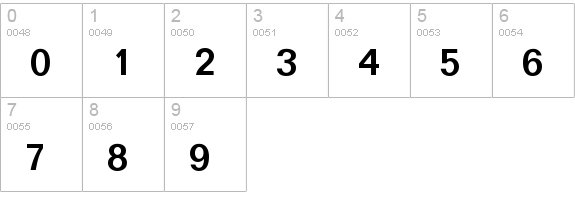
Focus-Medium-Regular Font Details
Focus-Medium-Regular is a balanced, medium-weight variant in the Focus typeface family \xE2\x80\x94 well suited to sub-headlines, navigation, and balanced editorial work.
The Focus Medium Regular font is a versatile and modern typeface that strikes the perfect balance between elegance and readability. With its clean lines and balanced proportions, this font is ideal for a wide range of design projects, from branding to web design and everything in between. What sets Focus Medium Regular apart is its timeless appeal and versatility, making it a go-to choice for designers looking to make a bold statement with their typography. Whether you're creating a sleek logo or crafting a stylish editorial layout, this font is sure to make your text stand out. Best of all, Focus Medium Regular is available for free download at FontsMarket.com, so you can start using it in your projects right away. Don't miss out on this opportunity to add a touch of sophistication to your designs with this beautiful and versatile font.